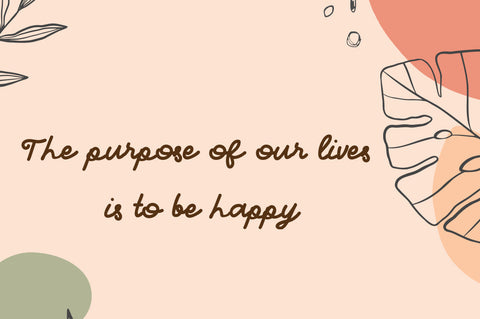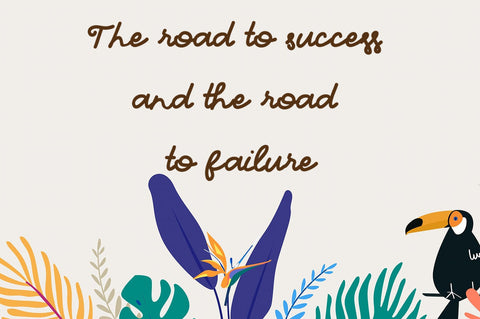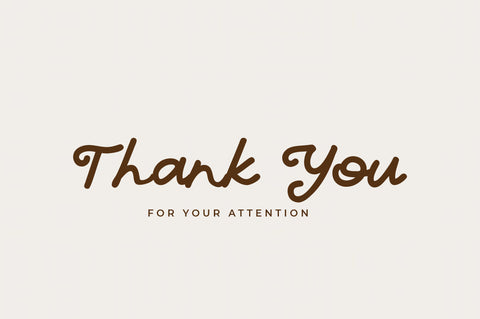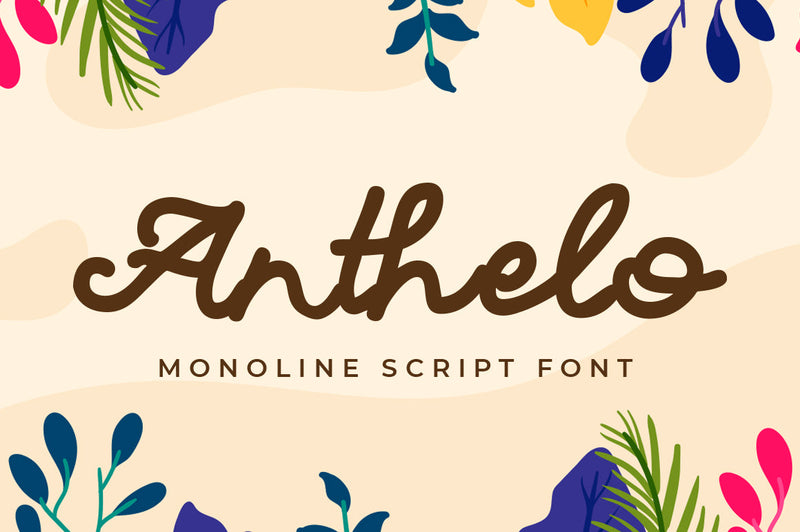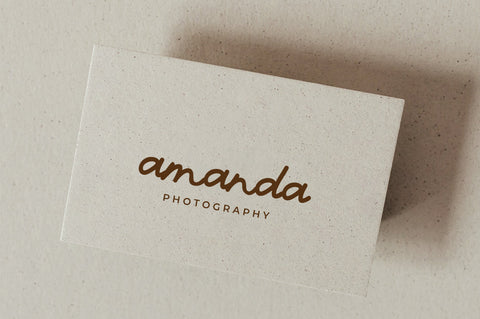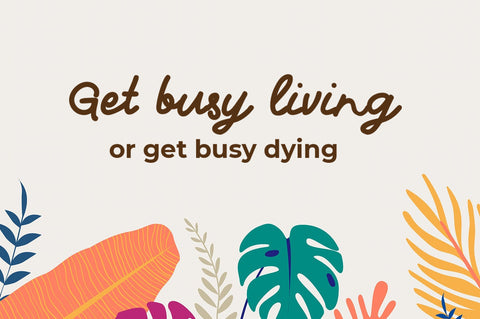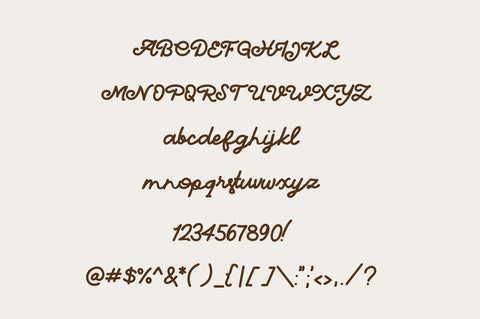
Anthelo - Cursive Font
Anthelo is an elegant and delicate handwritten font. It looks stunning on wedding invitations, thank you cards, quotes, greeting cards, logos, business cards and every other design which needs a handwritten touch.
- Uppercase + Lowercase Letters
- Numbers + Punctuation
- Ligature Feature